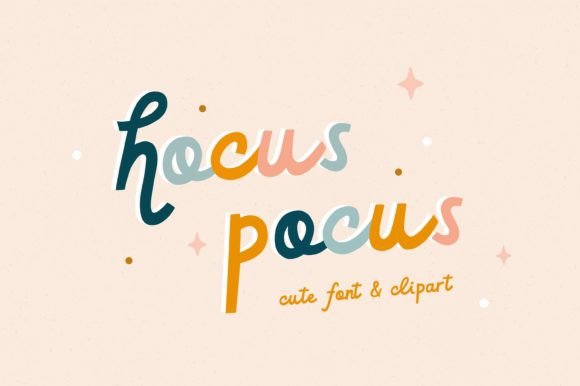
Looking for the best font for job cover letters? Look no further than Hocus Pocus Font, a fun and playful hand-drawn script typeface created by Julia_Volkova.
Not only is Hocus Pocus Font visually appealing, but it is also incredibly versatile, making it a great choice for a variety of projects. Whether you're designing a logo, creating a quote graphic, designing invitations, greeting cards, journals, posters, or even child-friendly designs, this font will suit all your needs.
The Hocus Pocus Font is perfect for anyone looking to add a touch of whimsy and creativity to their work. With its unique and playful style, it will grab your reader's attention and make your message stand out.
But don't just take our word for it. Try it out for yourself and see how it can elevate your designs. This font is the perfect choice for anyone who wants to create something that's not only beautiful but also fun and engaging.